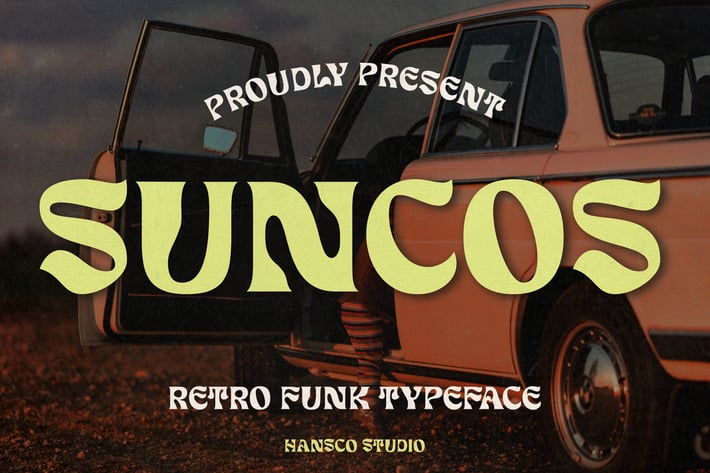
Suncos Font
Suncos is a retro funk fonts that feels casual and clean an incredible modern retro aesthetic. Equipped with all complete characters ranging from uppercase letters, lowercase letters, numbers, punctuation marks and multi-lingual support, this font is ready to be used in any project. Very suitable for logotype, Stickers, Packaging design, Cricut Project, headlines, brand identity, posters, magazines, books, YouTube, Instagram, websites or any of your creative design projects. Use this Suncos font to add that special modern retro touch to any design idea you can think of!